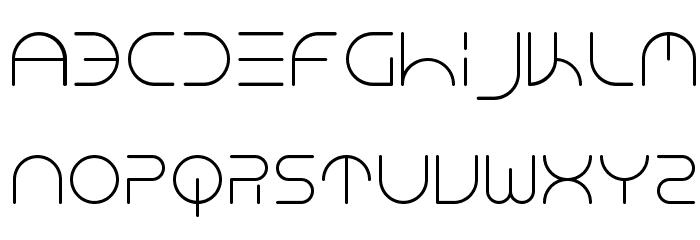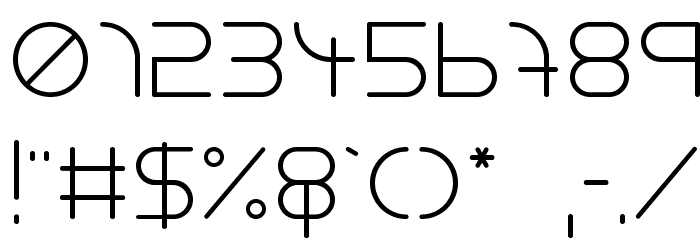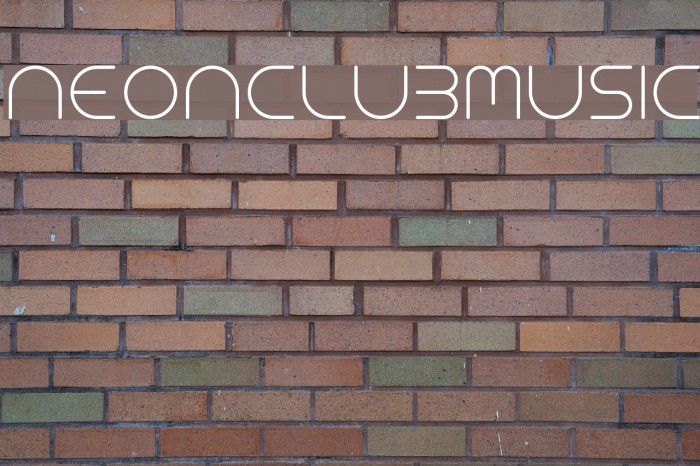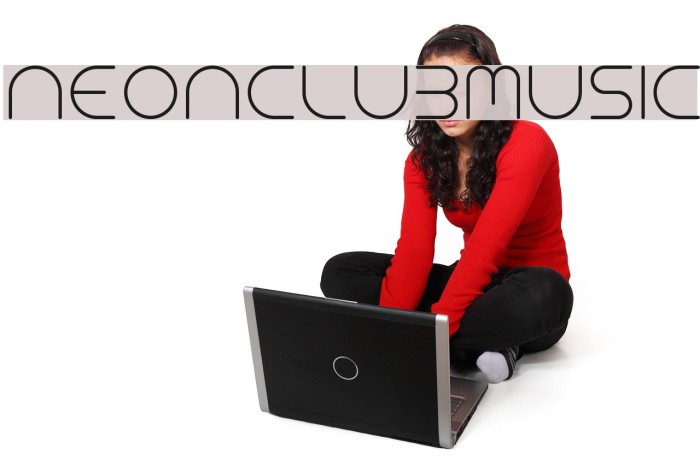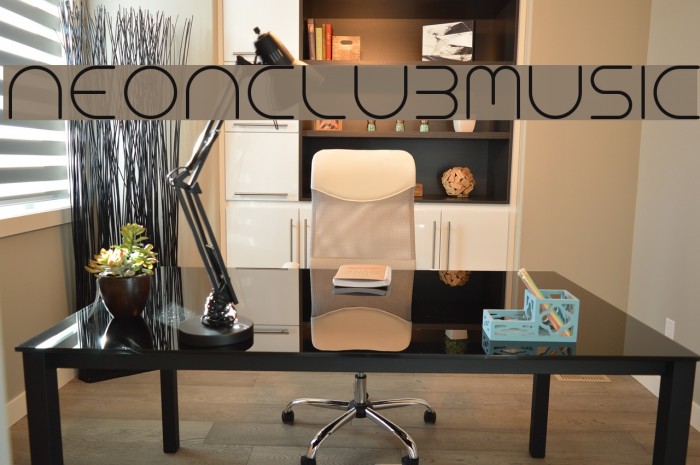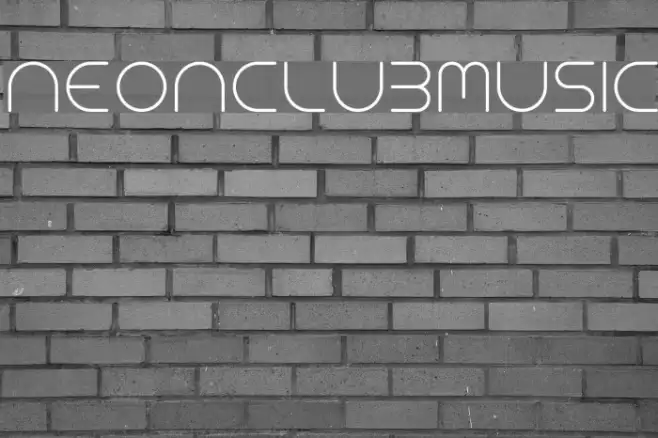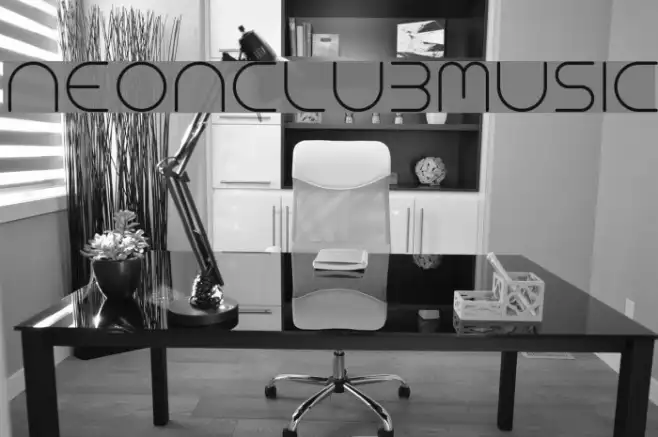
NEONCLUBMUSIC Font
This font features a futuristic and minimalist design, characterized by its geometric shapes and clean lines. The letters are constructed with a consistent stroke width, creating a uniform appearance. The uppercase and lowercase letters share similar design elements, enhancing the cohesive look. The numerals and special characters maintain the same stylistic approach, ensuring harmony across all glyphs. The font's open and airy structure makes it suitable for modern and tech-oriented projects, where clarity and style are paramount.
A futuristic, minimalist font with geometric shapes and consistent stroke width.
- Proposed Projects: Ideal for tech branding, digital interfaces, modern posters, and futuristic design projects.
- Overall Style: Futuristic
- Use Case: Headlines, Logos, Digital Interfaces